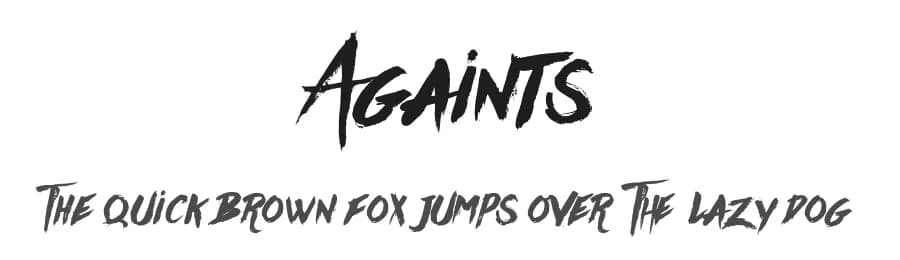
About Againts Font
Meet Againts, a font inspired by ink & tints hand-drawn brush. Make a beautiful creative mess using alternate glyphs and extra ligatures for your unrepeatable headline.
Againts Font is a script font that shines as a display or heading face. Pair it with a clean sans-serif or serif font for body text β the contrast creates a clear hierarchy while the two styles stay balanced and easy to read.